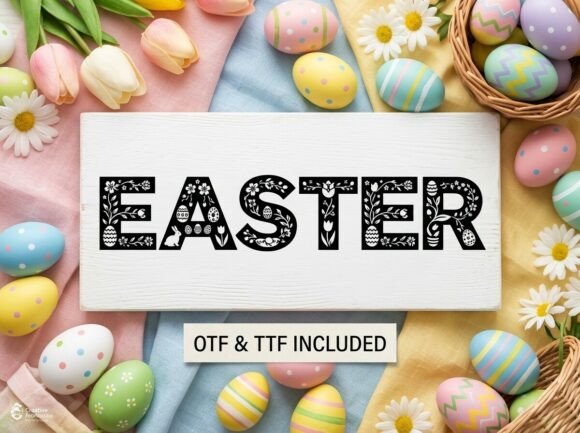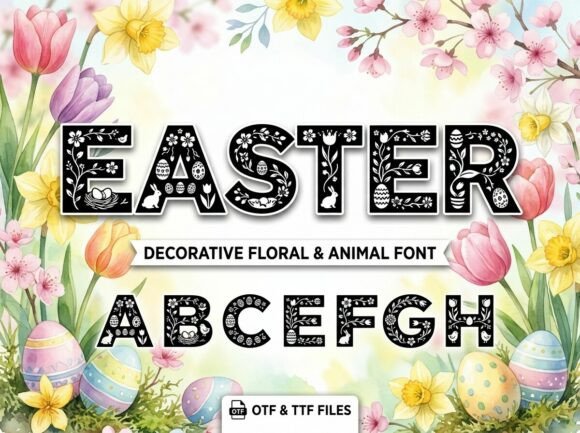
Welcome to the Magical World of Easter Font
Ah, the joys of designing for Easter! I still remember the year I was tasked with creating a festive holiday greeting card for a client, only to find myself stuck in a font rut. I scoured the internet for the perfect Easter-themed font, but nothing seemed quite right. That was until I stumbled upon Easter Font, a gorgeous ornamental spring display font that instantly brought my design to life. In this article, we’ll dive into the world of Easter Font, exploring its features, and how to make the most of it in your designs.
A Closer Look at Easter Font
Easter Font is a stunning addition to any design project, perfect for bringing a touch of springtime magic to your work. Built upon a heavy, solid sans-serif block architecture, this font ensures maximum legibility, making it ideal for a variety of applications. What sets it apart, however, is its intricate, hand-cut spring garden scenes hollowed out of each individual letter silhouette. Imagine your text blooming with nested Easter bunnies, patterned holiday eggs, curling botanical vines, delicate tulips, and potted garden blossoms!
What I Love About Easter Font ✨
- ✅ Unique and Festive Design: The Easter Font is unlike any other font out there. Its distinctive design makes it perfect for Easter and spring-themed projects.
- ✅ Highly Legible: Despite its ornate details, the font remains clear and easy to read, even at smaller sizes.
- ✅ Versatile: From festive holiday greeting cards to neighborhood egg hunt invitation banners, preschool spring festival signage, seasonal bakery labels, and custom vinyl cutting crafts, Easter Font can be used in a multitude of projects.
- ✅ OpenType Features: The font comes with a range of OpenType features, including glyphs and stylistic alternates, allowing for even more customization.
While Easter Font is a fantastic addition to any design project, there are a few things to keep in mind:
- 🤔 Complexity: Due to its intricate design, the font might not be suitable for very small text sizes or projects requiring a more minimalist look.
- ⚠️ Glyph Usage: Some of the more intricate glyphs and stylistic alternates may require a bit of practice to use effectively.
The Story Behind Easter Font
Easter Font was created with the goal of capturing the essence of springtime joy and festivity. The designer, inspired by the beauty of blooming gardens and the magic of Easter morning, crafted a font that would bring a touch of whimsy and delight to any project. With its intricate details and festive charm, Easter Font has become a beloved choice for designers and crafters alike.
| What makes Easter Font unique? | Easter Font is unique due to its intricate, hand-cut spring garden scenes within each letter silhouette, making it perfect for Easter and spring-themed projects. |
| Does Easter Font support OpenType features? | Yes, Easter Font comes with a range of OpenType features, including glyphs and stylistic alternates, allowing for extensive customization. |
| Is Easter Font difficult to use for beginners? | While Easter Font offers complex designs, it’s relatively easy to use, especially with a little practice. Beginners can start with simple projects and explore more intricate features as they become more comfortable. |
With Easter Font, you can give your titles a beautifully detailed, joyful seasonal spirit that jumps right off the page! Whether you’re a designer, crafter, or creative hobbyist, this font is sure to bring a touch of springtime magic to your projects.